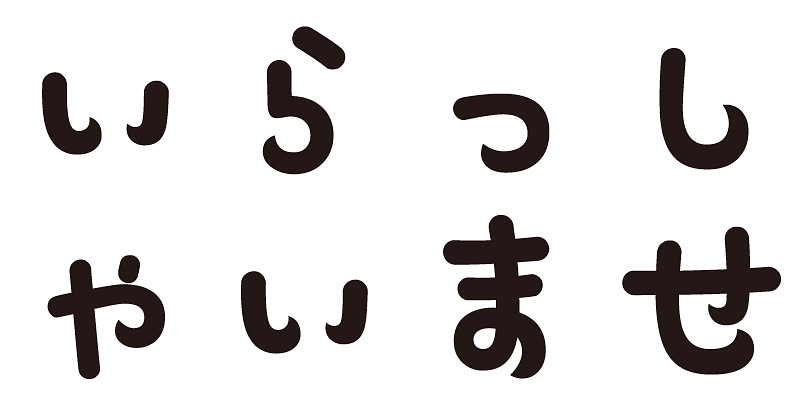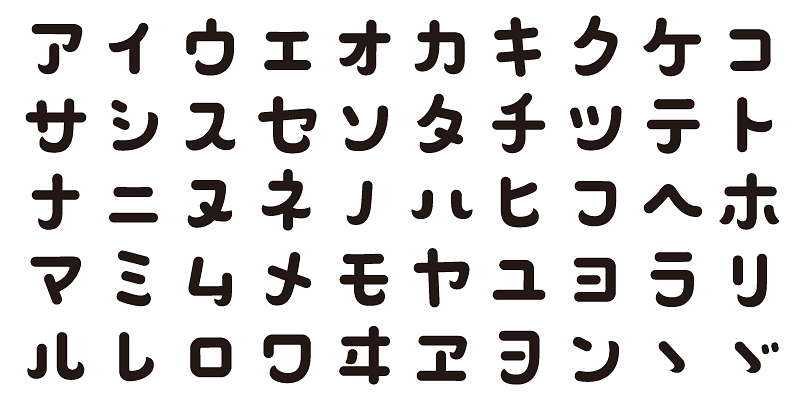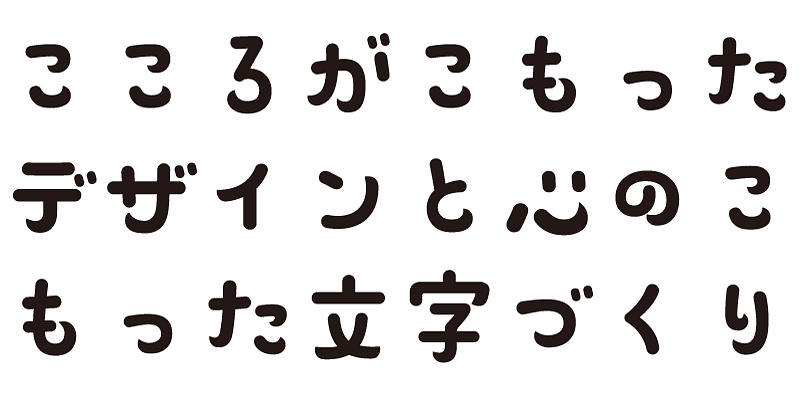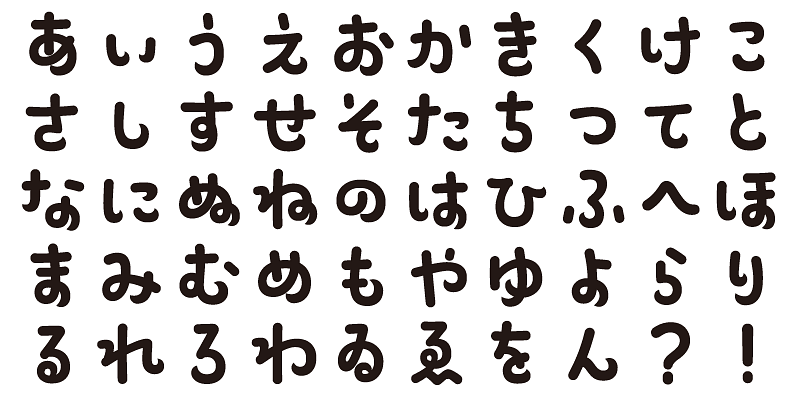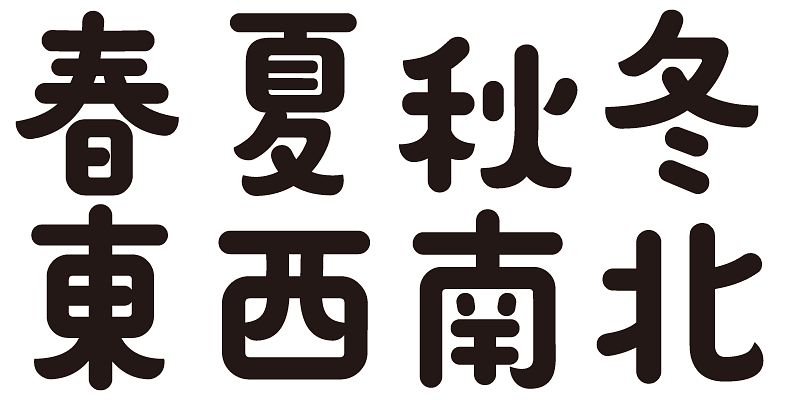
This typeface design is inspired by the movements of infants, evoking the playful feel of pocchari (chubby and cute), pocchiri (small and round), bochibochi (little by little, gradually), and pochipochi (clicking or tapping motions).
This font includes top 1,000 kanji characters chosen from character frequency tables made by newspaper companies, publishing houses and linguistic research institutes, plus about 400 alphanumeric, kana characters and punctuation marks.